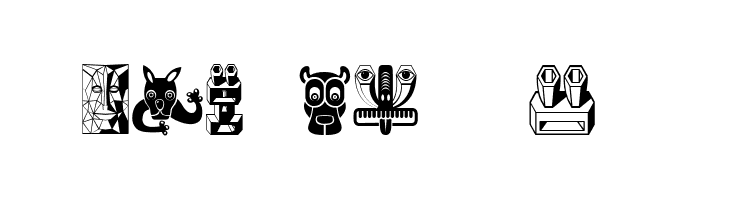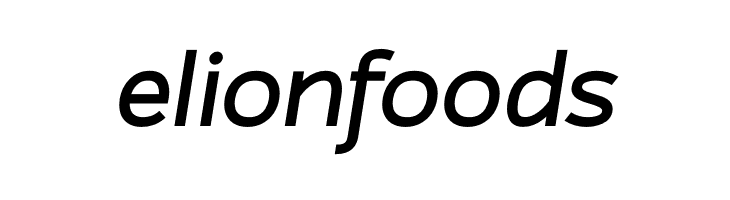
• Atozimple SemiBold Italic
A modern, semi-bold italic font with clean lines and a dynamic style.
• Atozimple Thin
A modern, thin sans-serif font with clean lines and minimalist design.
• Atozimple Thin Italic
A sleek, thin, and italicized font with a modern and minimalist design.
• Atradimas Regular
A playful, pictogram-based decorative font with abstract and character-inspired glyphs.
• ATribeofAclems
A tribal-inspired font with bold, angular strokes and a hand-drawn aesthetic.
• ATRON
A geometric, futuristic font with bold, angular shapes and clean lines.
• ATRON Rounded
A modern, geometric font with rounded edges and consistent stroke widths.
• ATRON Stencil
A bold, geometric stencil font with a modern, industrial aesthetic.
• ATRON*BLOCK*FILL
A bold, geometric font with blocky, angular shapes and a modern industrial feel.
• ATRON*RND*STNCL
A bold, geometric stencil font with rounded edges and a modern, industrial style.